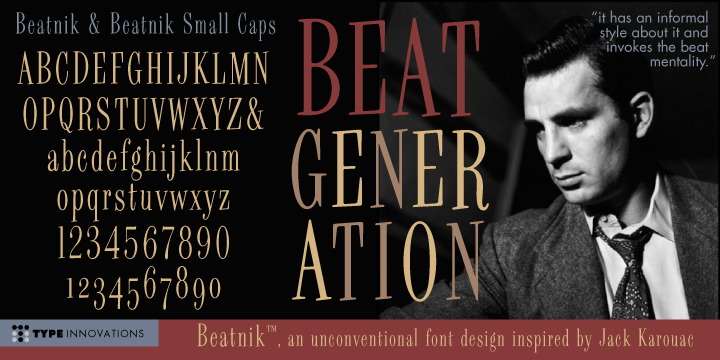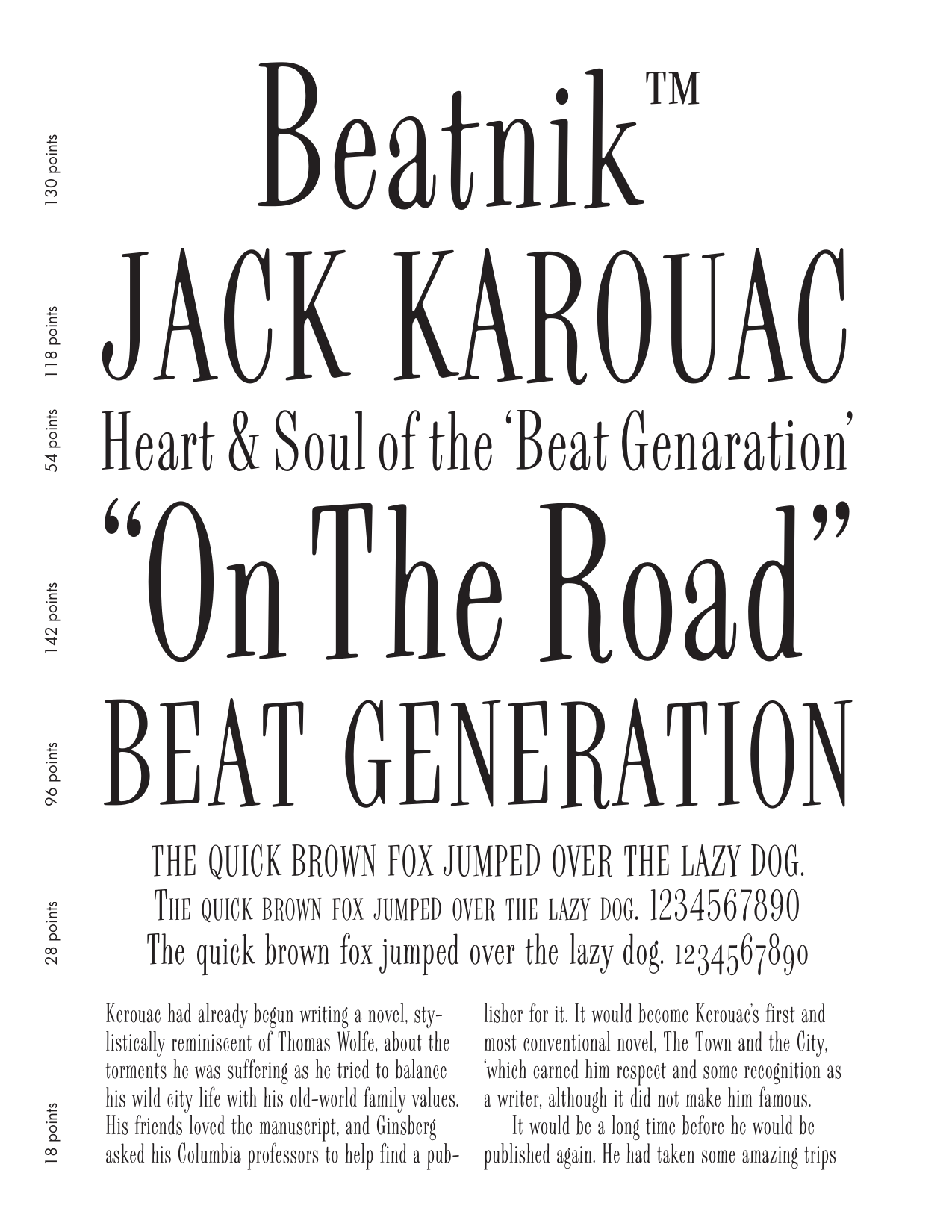
Beatnik Collection
Beatnik
RegularBeatnik Sm Cap
RegularI was working at Bozell Worldwide, an advertising agency, on their yearly promotional pitch. An art director was looking for a condensed informal headline treatment to be used on one of the new ad campaigns. I took several different font designs and started to condense and scale the proportions in the hopes of finding several good solutions. They finally settled on a version of Times Roman, scaled horizontally to about 50 percent proportions.
I liked the look so much that I later went back to the drawing board and refined the concept by adding slanted serifs and a varying alignment on all the letter forms giving the typeface a very casual and informal appearance.
At about that time, I was reading a book by Jack Karouac, and was so inspired by his writings on the 'beat generation' that I decided to name the font 'Beatnik'. Afterwards, I added a set of true small capitals and old style figures. I'm currently working on additional weights and variations to expand this 'hip' new font series. Groovin' baby.